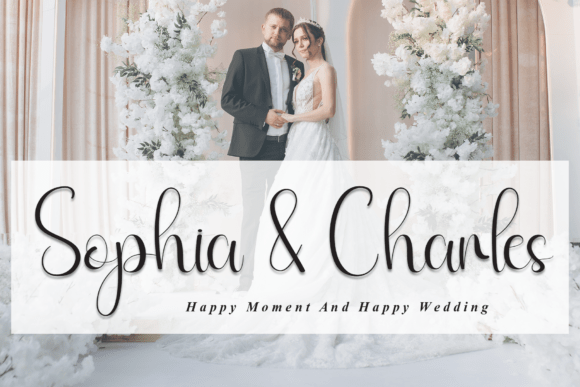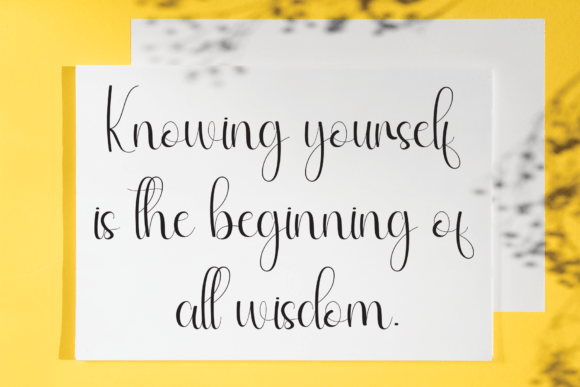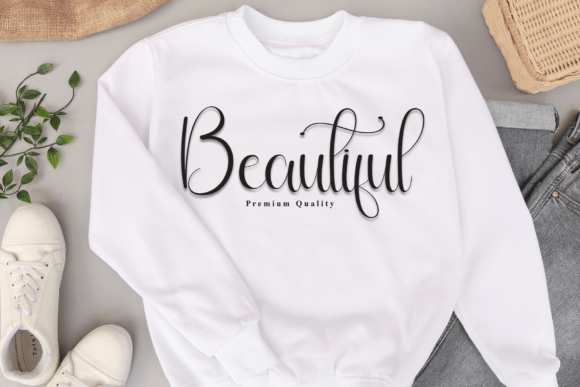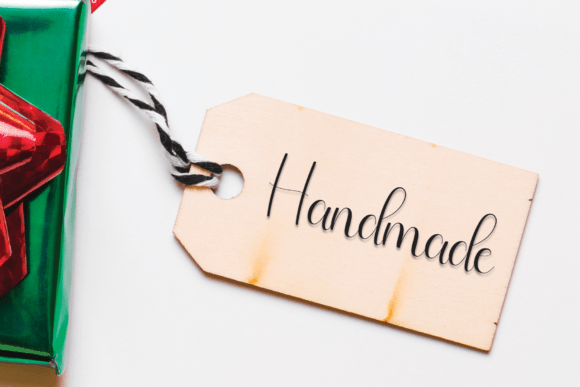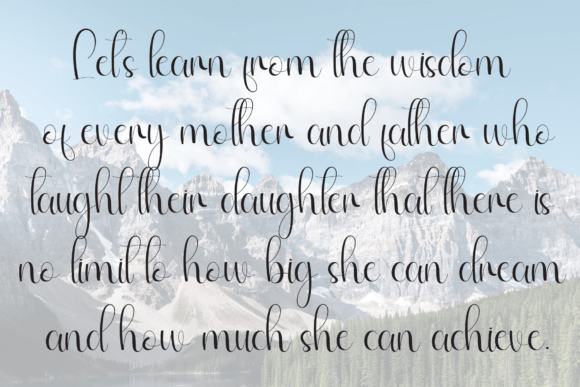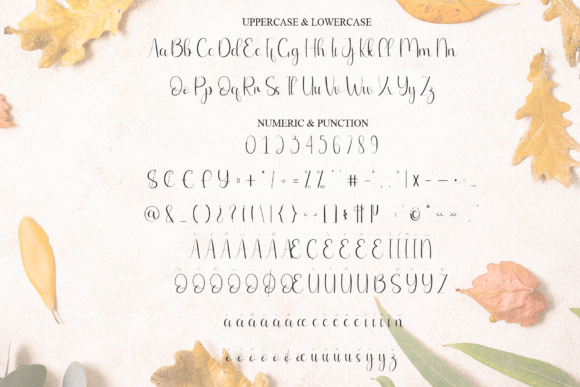
The Perfect Script for Fall: Unveiling the Autumn Font
As a designer, there’s nothing quite like the thrill of finding the perfect font to elevate a project. You’re brainstorming ideas for a new branding campaign, and suddenly, a vision pops into your head – a warm, inviting logo that screams autumn. The crunch of leaves beneath your feet, the golden light of a fading sunset, and the cozy feel of a crackling fire. It’s the essence of fall, and the perfect font to capture it is none other than the Autumn Font.
This stylish handwritten script font is a game-changer for designers looking to add a touch of elegance and sophistication to their work. With its fluid, graceful strokes and smooth curves, the Autumn Font is the perfect choice for branding, invitations, and stationery. Whether you’re creating a new logo, designing a wedding invitation, or crafting a set of stationery, this font is sure to leave a lasting impression.
Autumn Font Key Features
- Font Family: Autumn Font is a unique, custom-designed font family with multiple styles, including Regular, Bold, Italic, and Bold Italic.
- Character Set: The font includes a comprehensive set of characters, including uppercase and lowercase letters, numbers, punctuation marks, and special characters.
- Unique Characteristics: Autumn Font features a distinctive, hand-drawn style with subtle texture and organic elements, giving it a warm and inviting feel.
Review of Autumn Font
Autumn Font has a certain charm to it, and that’s what drew me in initially. ✨ The combination of elegant, handwritten strokes and subtle texture creates a sense of warmth and coziness that’s perfect for fall-themed designs or projects that need a rustic feel.
One of the strengths of Autumn Font is its versatility. ✨ It works well for both display and body text, making it a great option for headings and body content alike. Additionally, the font’s unique character set allows for a wide range of creative possibilities.
However, I do have some reservations about Autumn Font. ⚠️ The font’s texture can sometimes be overwhelming, especially when used in large blocks of text. Additionally, the font’s connection to the natural world may not be to everyone’s taste.
Overall, I think Autumn Font is a solid choice for designers who are looking for a unique, seasonal font. While it may not be perfect, its strengths outweigh its limitations in many cases.
Here are some key points to consider:
- Unique, handwritten style
- Subtle texture adds depth and character
- Works well for display and body text
- May be overwhelming when used in large blocks
- Not to everyone’s taste
Autumn Font is ideal for designs that require a warm and inviting tone, such as:
- Seasonal promotions and advertising
- Home decor and furniture design
- Outdoor and nature-inspired designs